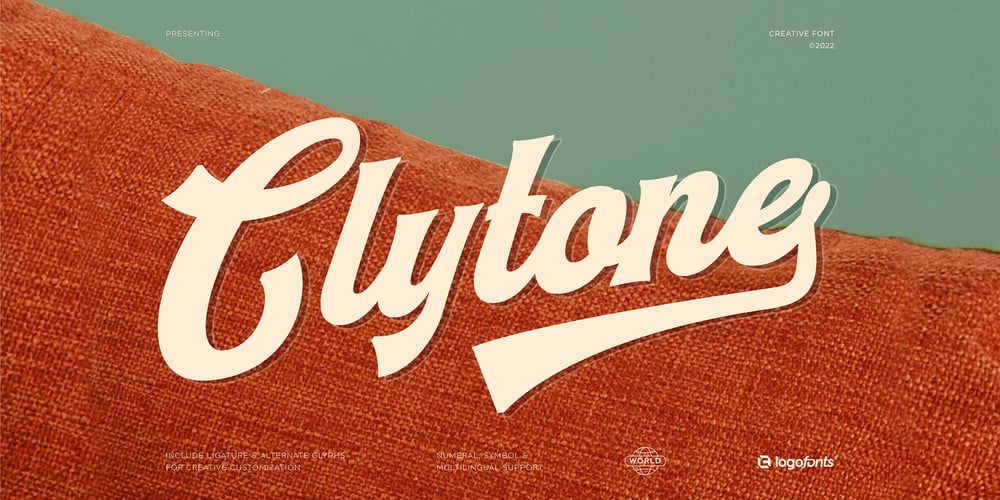
Clytone Font Family was designed by Anna Safitri and published by Logofonts. Clytone contains 1 styles and family package options. Clytone is Script fonts Vintage looks and feel inspired by the 1980s lettering design made stronger and bolder for today’s projects that look more vintage. The goal was to take the simple but effective designs from this era. Clytone are fonts are great for product logo, poster, headline, card logo, clothing brand logo, lettering artwork, t-shirt designs, Vintage design, magazine, packaging, stationery and much more. Easily creates your own logo type with fonts. Clytone has an Open Type feature to access a large selection of unique alternative letters and many ligatures to make it easier for you to create.Clytone can be accessed perfectly on design applications such as Adobe Illustrator, Adobe Photoshop, Corel Draw, Affinity Designer but does not rule out the possibility that it can also be accessed using web-based applications such as kittl, canva, artboard studio and others.